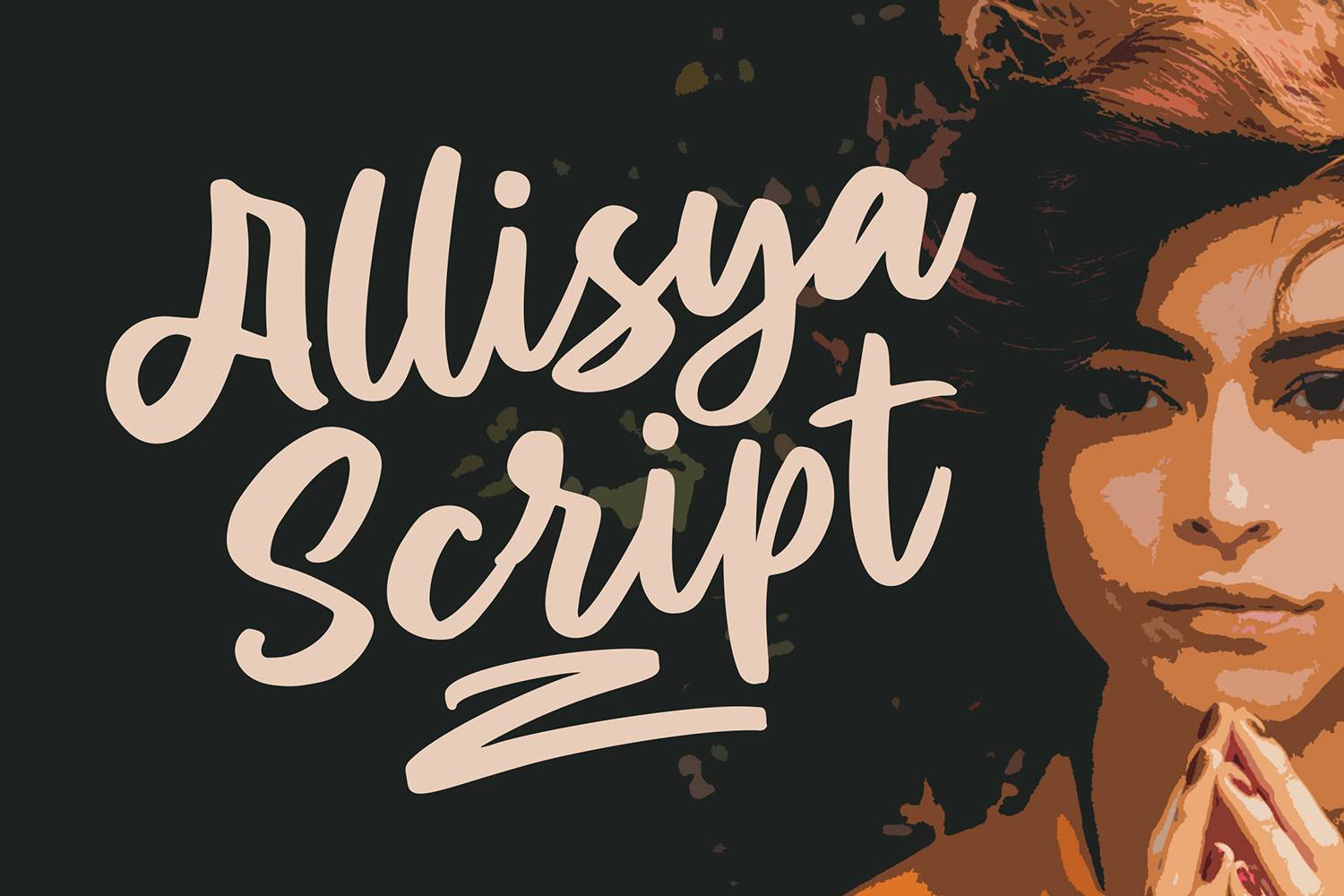
Allisya Script Font is a lively and bold script typeface with a smooth, hand-painted feel that combines casual charm with strong presence. Its moderately high x-height and slightly condensed letterforms give it great readability while maintaining an energetic flow, making it perfect for eye-catching headlines, branding, and creative projects that want to convey friendliness and modern elegance. This font works well in logos, invitations, and packaging where a fresh and approachable yet confident personality is needed.
Allisya Script Font
About Allisya Script Font
| Font family | Allisya Script Font |
| Designer | Wahyu Andi |